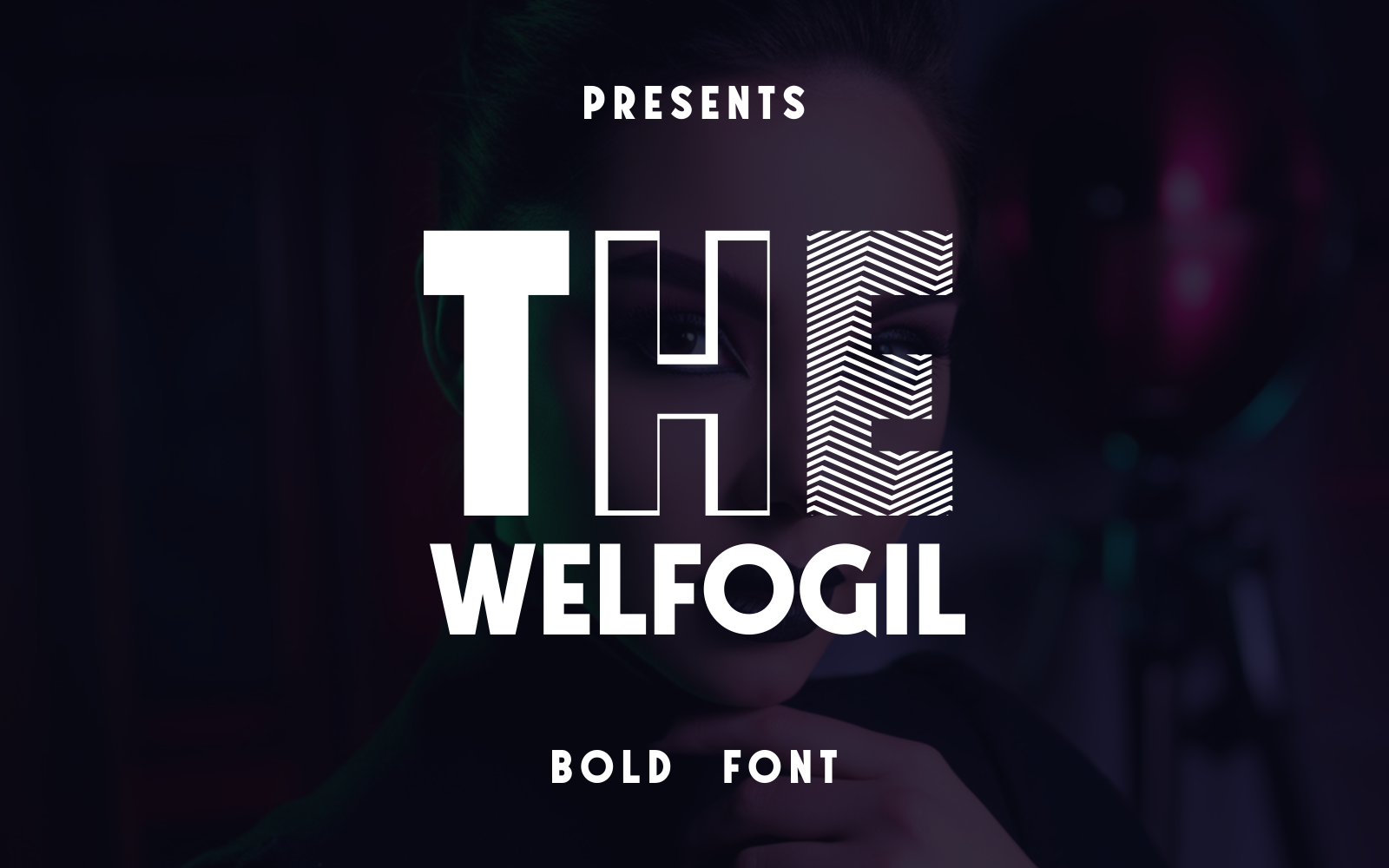
The Welfogil 3 Style Futuristic Font
Introducing The Welfogil – a sophisticated and dynamic font crafted to amplify your brand's identity. With unique angles and a modern, stylish design, The Welfogil commands attention and effectively conveys your message. Available in .OTF and .TTF formats, it’s an excellent choice for branding, packaging, and digital projects.
Three Versatile Styles to Enhance Your Design
- Standard: A clean, powerful version that highlights The Welfogil’s distinct structure and bold lines. Perfect for logos, headlines, and key brand messaging, it delivers impact and clarity.
- Prisma: This layered, dimensional style adds depth and movement, making it ideal for titles, posters, and any design that needs extra character. Prisma style brings a playful yet professional feel.
- Outline: A sleek, open-outline version that gives a lighter, modern touch. Great for minimalist designs and overlay effects, the Outline style keeps readability while adding an airy elegance.